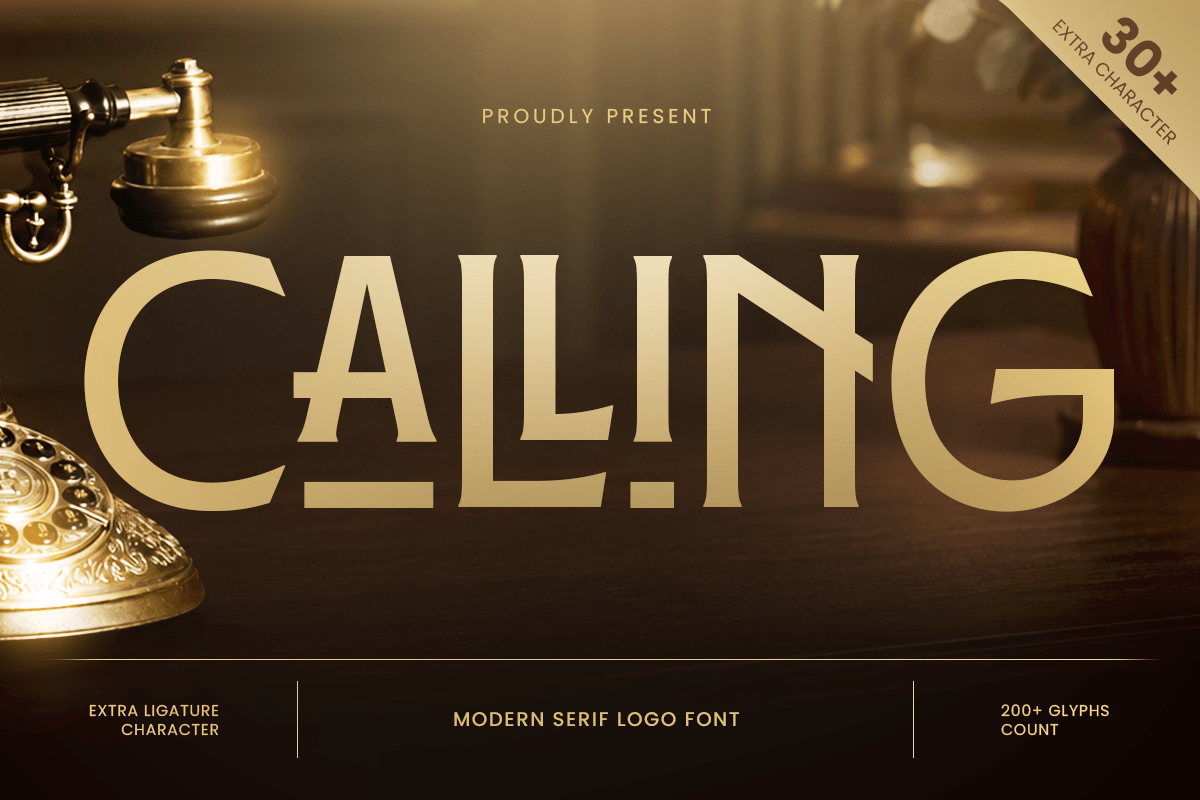
Calling
-Modern Serif Logo Font
Calling - Modern Serif Logo Font
CALLING is a modern vintage serif logo font that blends classic typography with contemporary refinement. Inspired by timeless vintage aesthetics, this typeface features elegant serif details, balanced proportions, and a sophisticated character perfect for creating memorable brand identities.
Designed for designers who appreciate heritage style with a modern touch, CALLING is ideal for logos, packaging, restaurant branding, boutique identities, editorial layouts, and premium product labels. Its distinctive letterforms bring authenticity, warmth, and a handcrafted feel to every composition.
Whether used for vintage-inspired brands, lifestyle products, fashion labels, or creative campaigns, CALLING delivers a refined visual presence that works beautifully across both print and digital applications.
CALLING – Modern Vintage Serif Logo Font Features
• Modern serif design inspired by classic vintage typography
• Perfect for logos, branding, packaging, and editorial projects
• Timeless letterforms with elegant retro character
• Ideal for lifestyle brands, restaurants, fashion, and boutique identities
• OpenType features for enhanced typographic flexibility
Create a timeless brand story with CALLING – the perfect modern vintage serif font for elegant logos, classic branding, and premium design. ✨